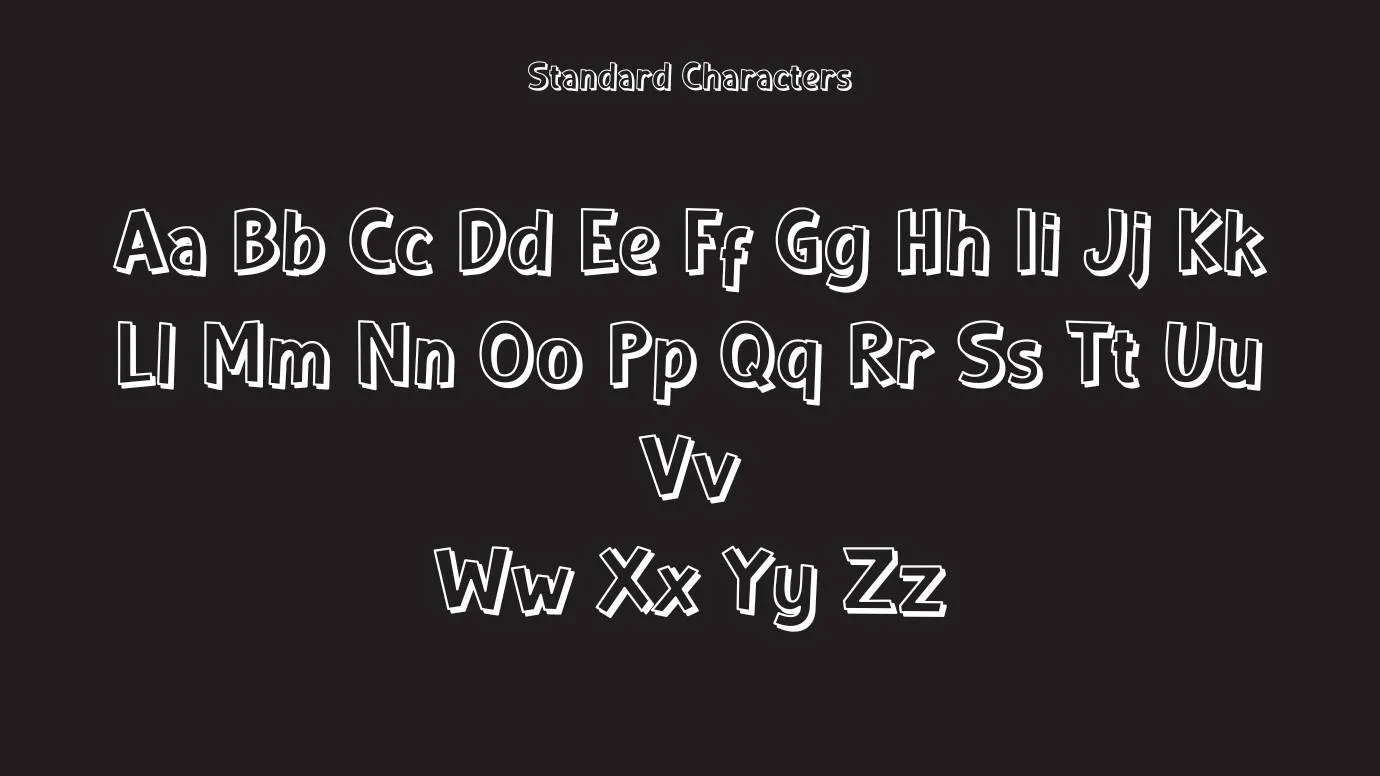
Let’s introduce an amazing fancy that has a bold hollow character appearance named Shadow Font. The characters of this font are broad and unique. This style features consisted of 1024 units per em and more than 128 fantastic characters. This font has a gentle, modern appearance.
This elegant typeface is ideal for any project that needs high-quality content. This font’s characters can be used to create a variety of projects.
By using this typeface, you can make various kinds of professional graphic designs, magazine-style graphics, and commercial websites. You can use this fashionable typeface as a headline for your design. This typeface is appropriate for creating PowerPoint presentations and designing posters in Canva or Adobe Photoshop.
You can design various layouts with this style such as the company’s logo, billboards, and many more. Additionally, this design is appropriate for making websites, labeling products, flyer designs, and banner designs. The typeface is used for various forms of advertising by numerous media sources and publications.
Shadow Font
This typeface is appropriate for fabric designing firms. This family is used for a variety of designs worldwide because it supports all languages.
Where can I use Shadow Font?
This unique typeface is suitable for logos, posters, graphic designs, magazine-style graphics, and websites as well.
Is Shadow Font Safe for the Web?
This fantastic typeface is fancy in nature. This typeface is web-safe and can be used safely in your projects.